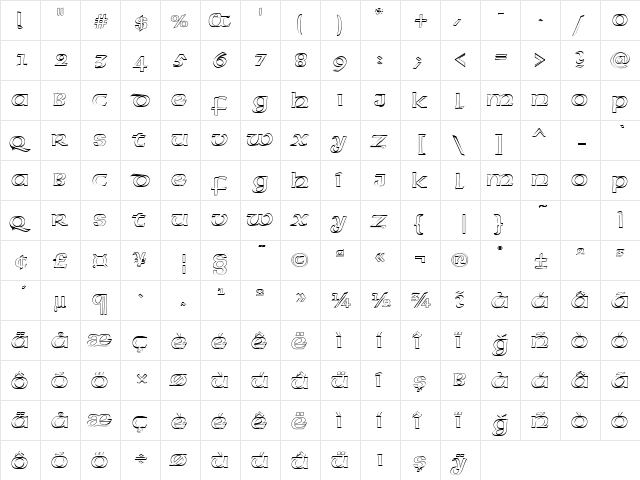
American Uncial Outline Normal Font Preview
American Uncial Outline Normal
Design Context for American Uncial Outline Typeface
American Uncial Outline is built around its visual character rather than neutral utility — its distinctive forms are designed to make an impression at display sizes.
Font Pairing: Pair with a clean neutral sans-serif for body copy to let American Uncial Outline's character lead without overwhelming the composition.
Pro Tip: Treat American Uncial Outline as the centrepiece of your typographic hierarchy. One strong heading set in a decorative face can carry an entire layout.